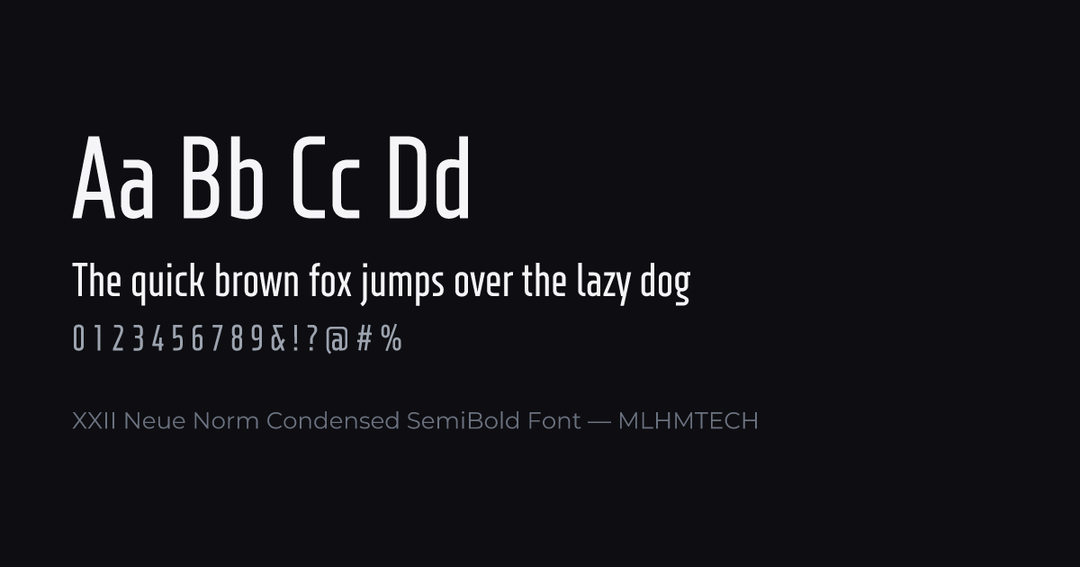
XXII Neue Norm Condensed SemiBold Font
A clean, modern condensed sans-serif font in SemiBold weight. Perfect for titles, headlines, and branding in video and graphic design.
XXII Neue Norm Condensed SemiBold is a versatile font that brings a contemporary and professional look to your projects. Its condensed letterforms save space while maintaining legibility, making it ideal for bold headlines, titles, and branding materials.
With its semi-bold weight, it strikes a balance between elegance and impact, ensuring your text stands out without overwhelming the design. Compatible with major design software, it's a must-have for any designer's toolkit.